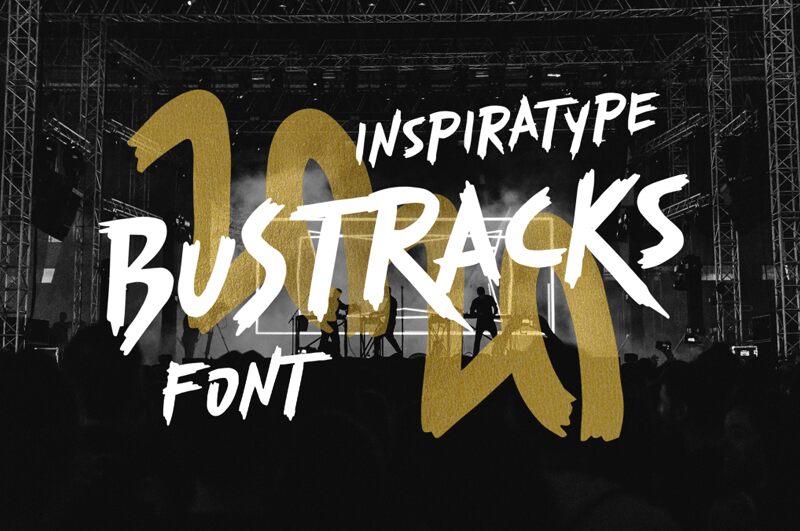
Bustracks FREE
Bustracks, the semi-bold brush font designed by Inspiratype, is perfect for adding a touch of whimsy and personality to any project. Its playful strokes and unique letterforms make it suitable for a variety of creative endeavors such as branding, packaging design, social media graphics, and even children's books. The semi-bold weight provides just the right amount of emphasis without overpowering the playfulness of the brush style. Whether you're looking to create a fun and lively brand or add some flair to your personal projects, Bustracks is sure to make a bold statement.
"Bustracks" is a font display is made by hand, inspired by classic posters.
comes with uppercase, lowercase, numerals, punctuations and so many variations on each character include OpenType alternates, common ligatures and also additional swash to let you customize your designs. Perfect to use for Logotype, Letterhead, Poster, Apparel Design, Label and etc.